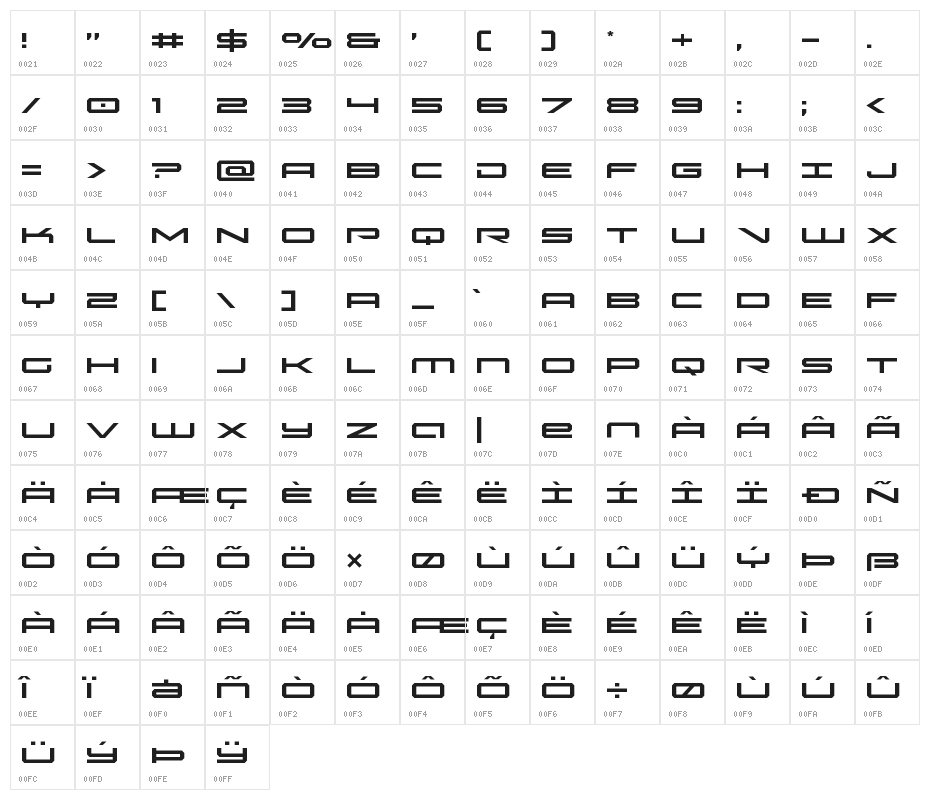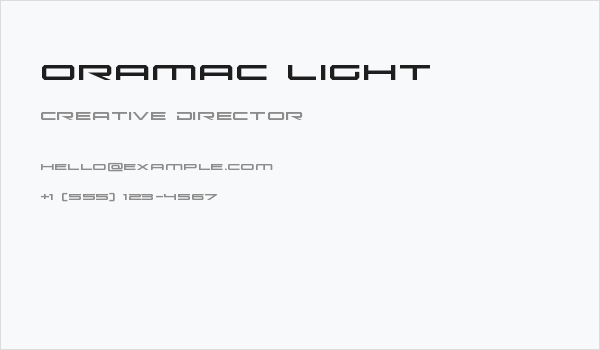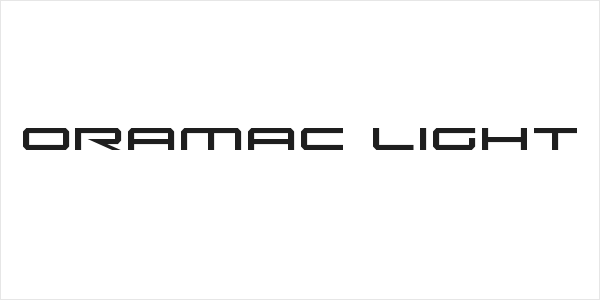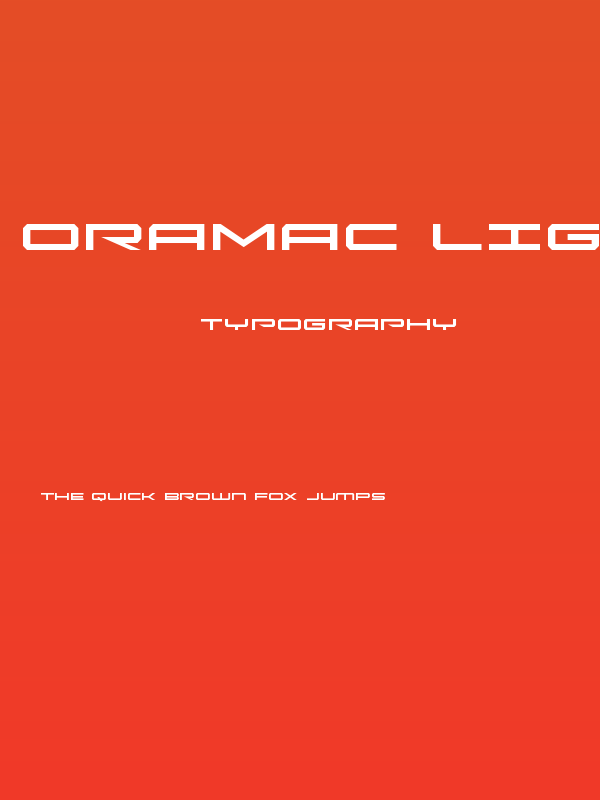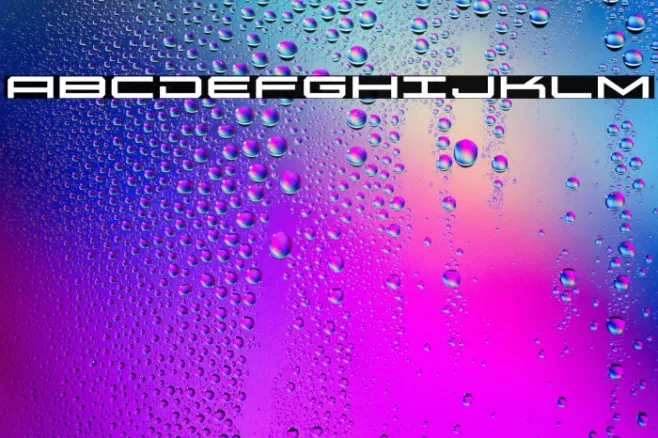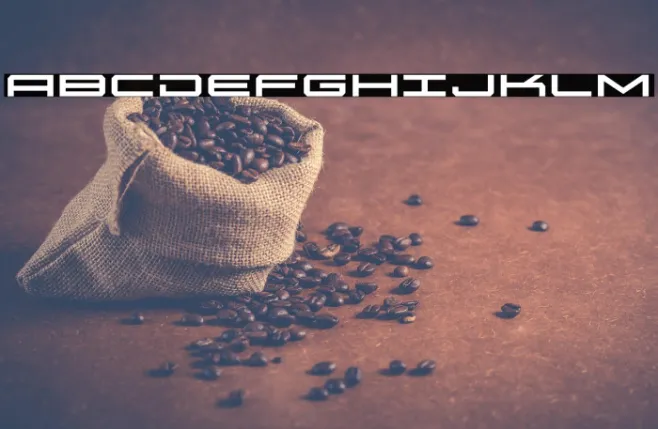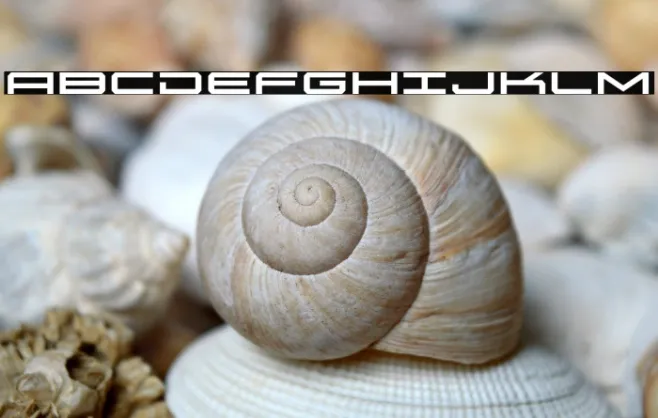
Oramac Light Font
Oramac Light Description
This font features a futuristic and geometric design, characterized by its angular and sharp edges. The uppercase and lowercase letters maintain a consistent style, with a uniform stroke width that gives it a sleek and modern appearance. The numerals and special characters complement the overall aesthetic, making it suitable for digital and tech-oriented projects. Its clean lines and structured form convey a sense of precision and innovation.
| Use Case | Logos, Headlines, Digital interfaces |
| Proposed Projects | Ideal for technology branding, sci-fi themed designs, video game interfaces, and modern advertising. |